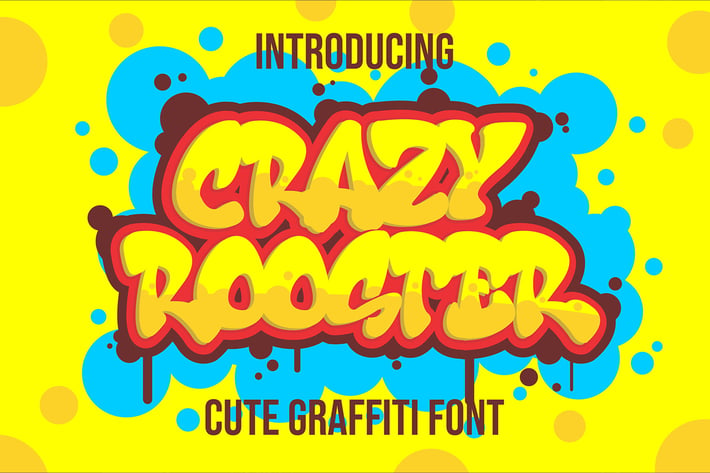
Crazy Rooster - Cute Graffiti Font
Crazy Rooster is a Strong and rounded display font with a graffiti-like appearance. Use this font for any crafting project, apparel design, logotype, advertising, wall decoration, and pretty much anything that requires a personalized look. Take your designs to the next level with this stunning font!